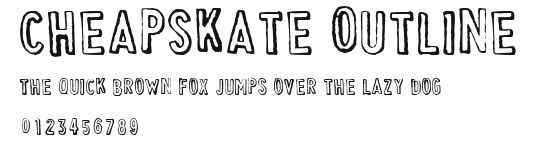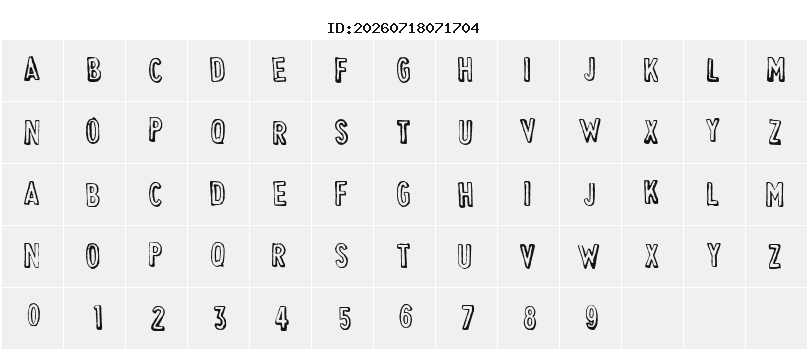
• Font Name: Cheapskate Outline
• Font Style: Outline
• Full Font Name: Cheapskate Outline
About Cheapskate Outline.ttf
Cheapskate Outline.ttf is a modern, elegant sans-serif font designed for ultimate readability and visual harmony. Perfect for branding, headlines, web design, and print materials.